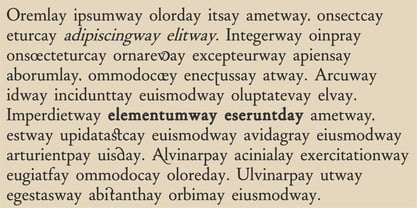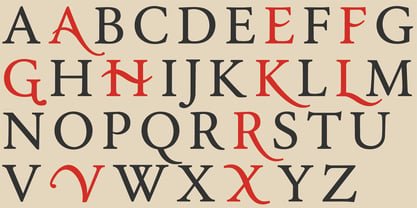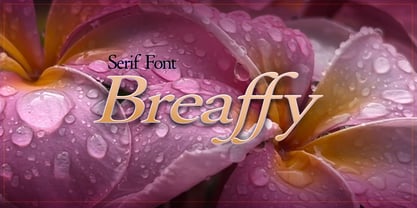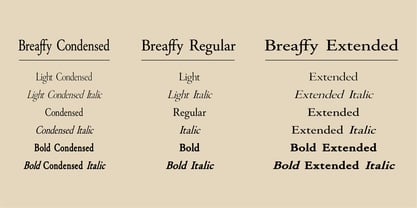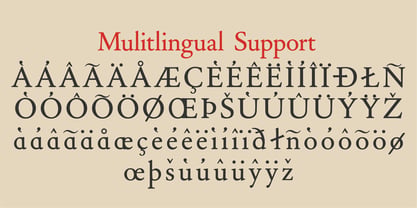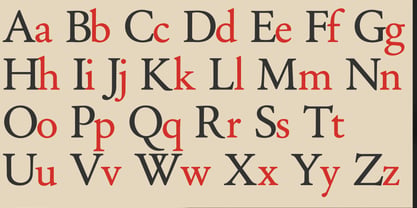
Breaffy
The Breaffy Font Family was designed by Matthew Gallagher and published by designoMatt. Breaffy contains 18 styles and family package options. More about this family
Breaffy is the newest font from our foundry and represents a modern refinement on an oldstyle type. Inspired by the Cloister Oldstyle, we worked to modernize and expand the basic character set. Working with the core glyphs, we created and expanded the family into a complete extended Latin set with alternate glyphs as well as a sampling of ligatures and Welsh characters.
The focus on Breaffy was to create a serif that would be used as our own design studio’s selected serif family. At present there are Regular, Condensed, and Extended versions with a total of 18 fonts in the family. Breaffy is perfectly suite for everyday correspondence as well as use in design projects for logos, branding, and motion work.